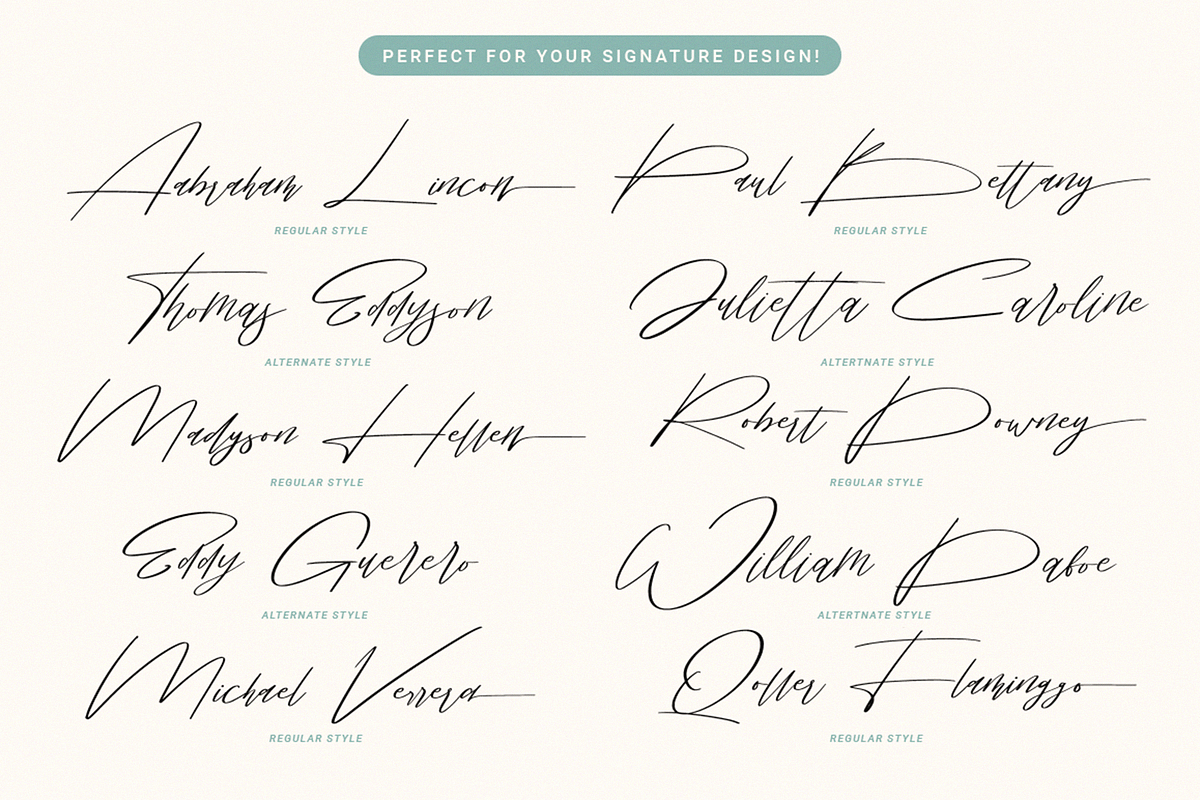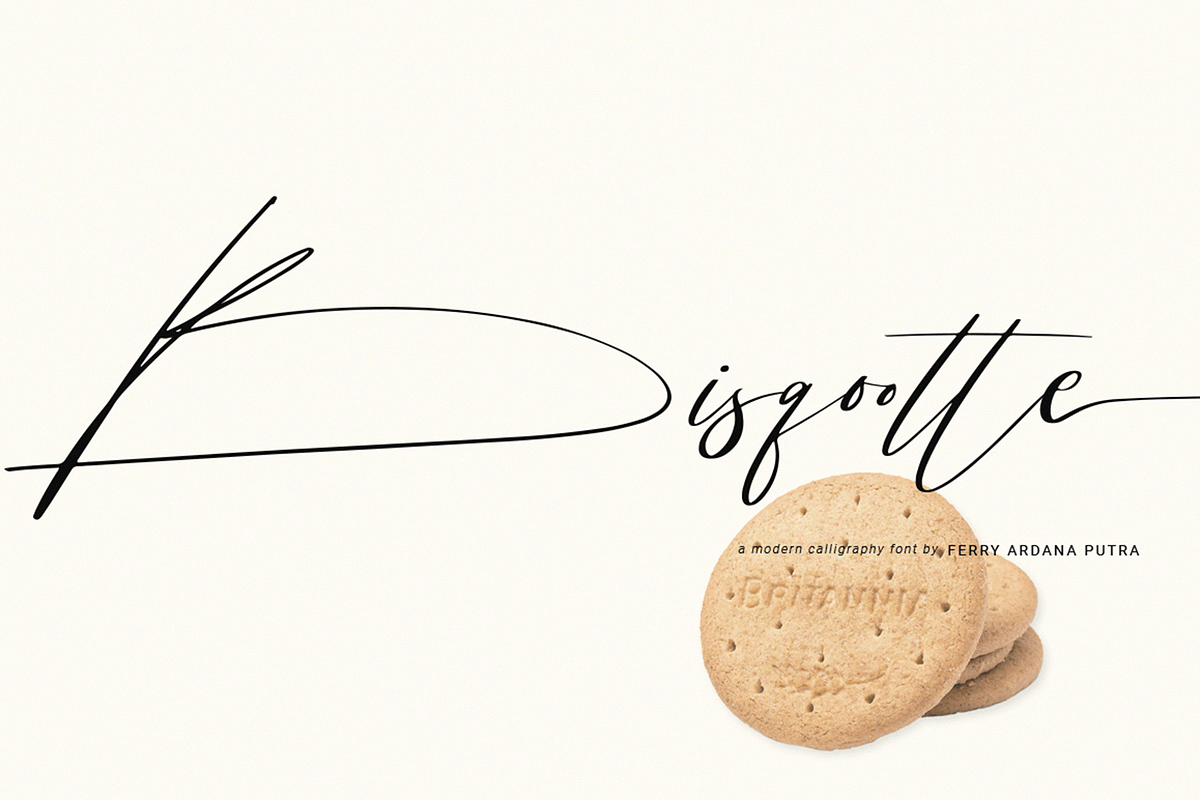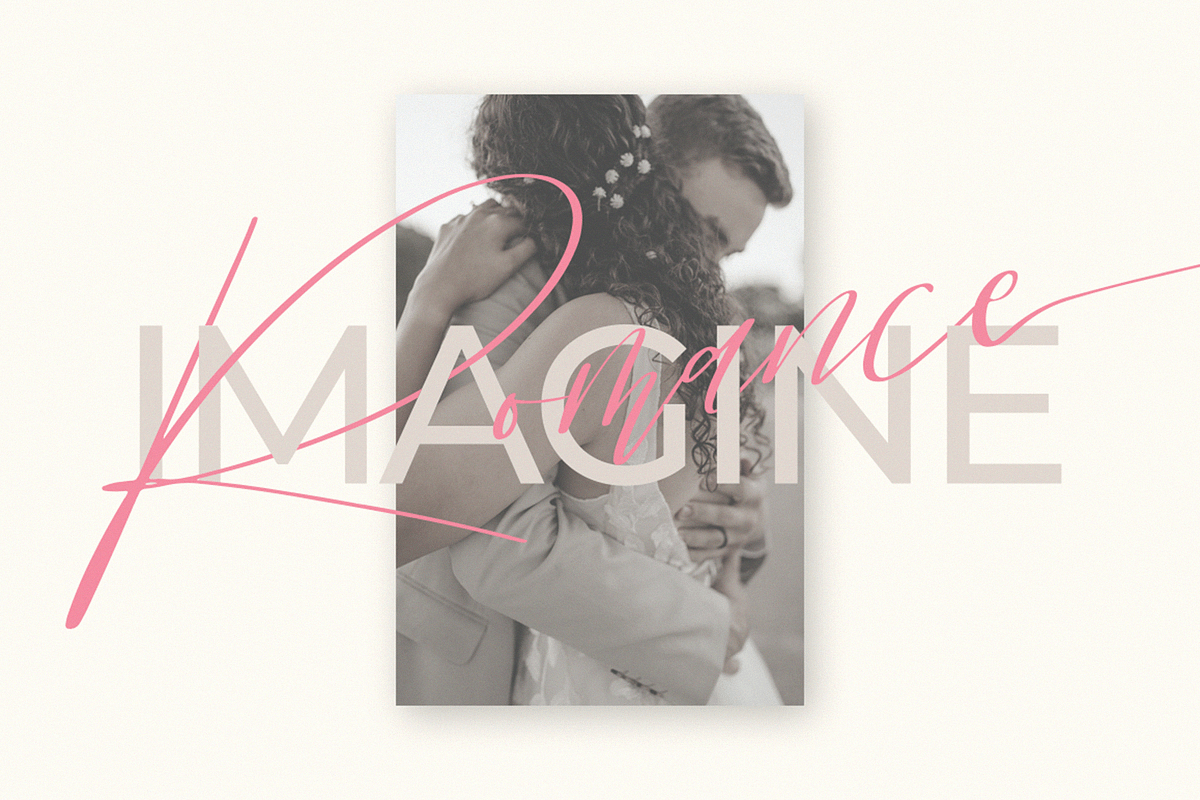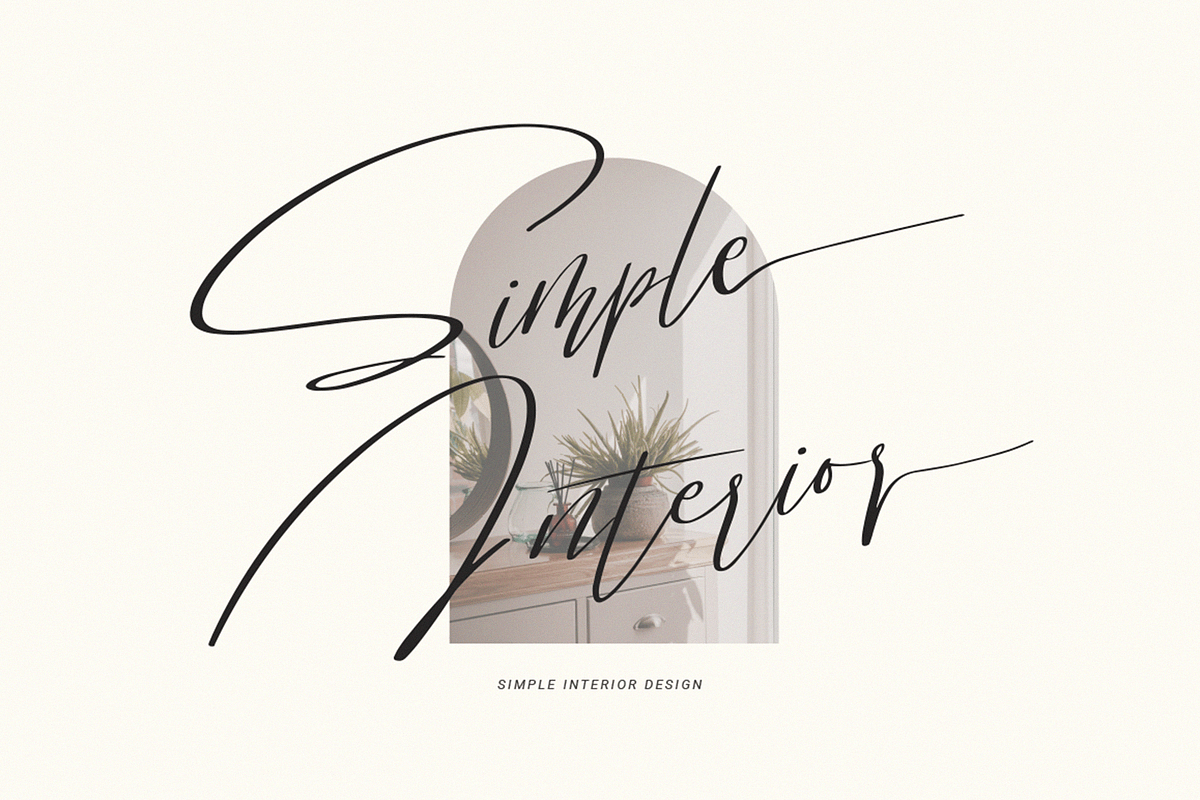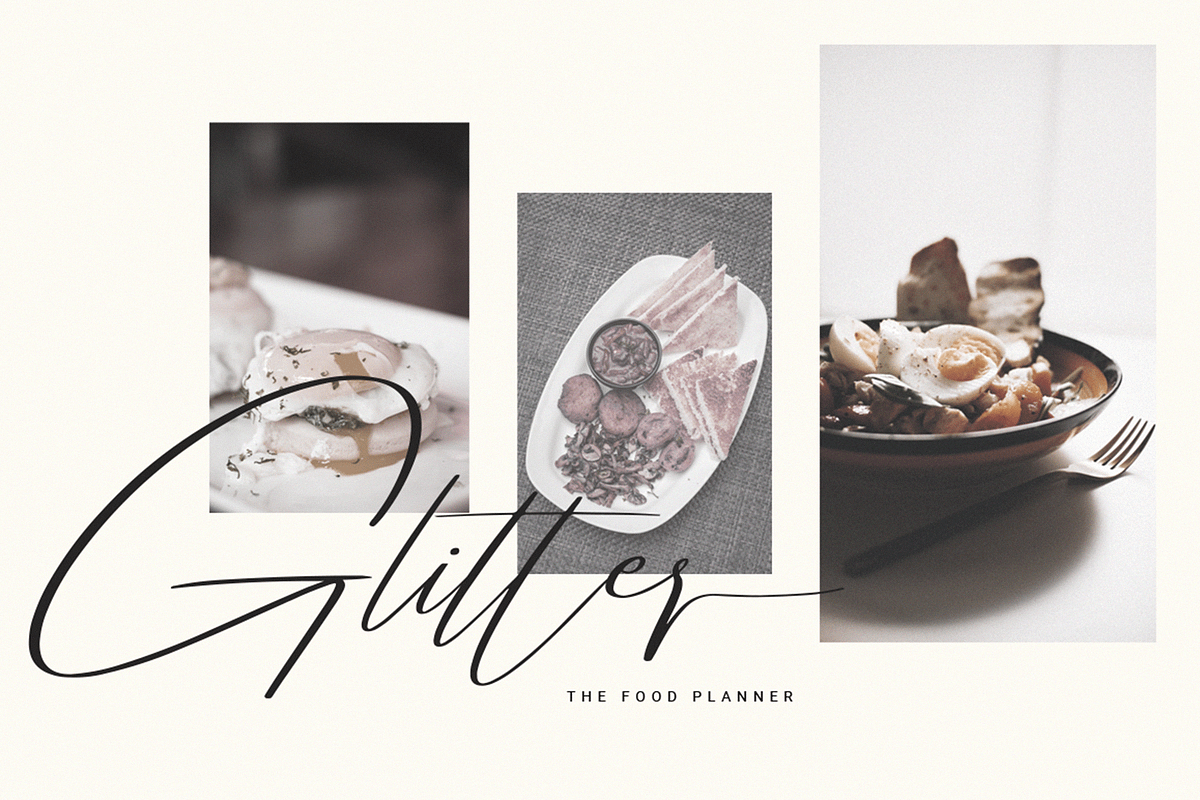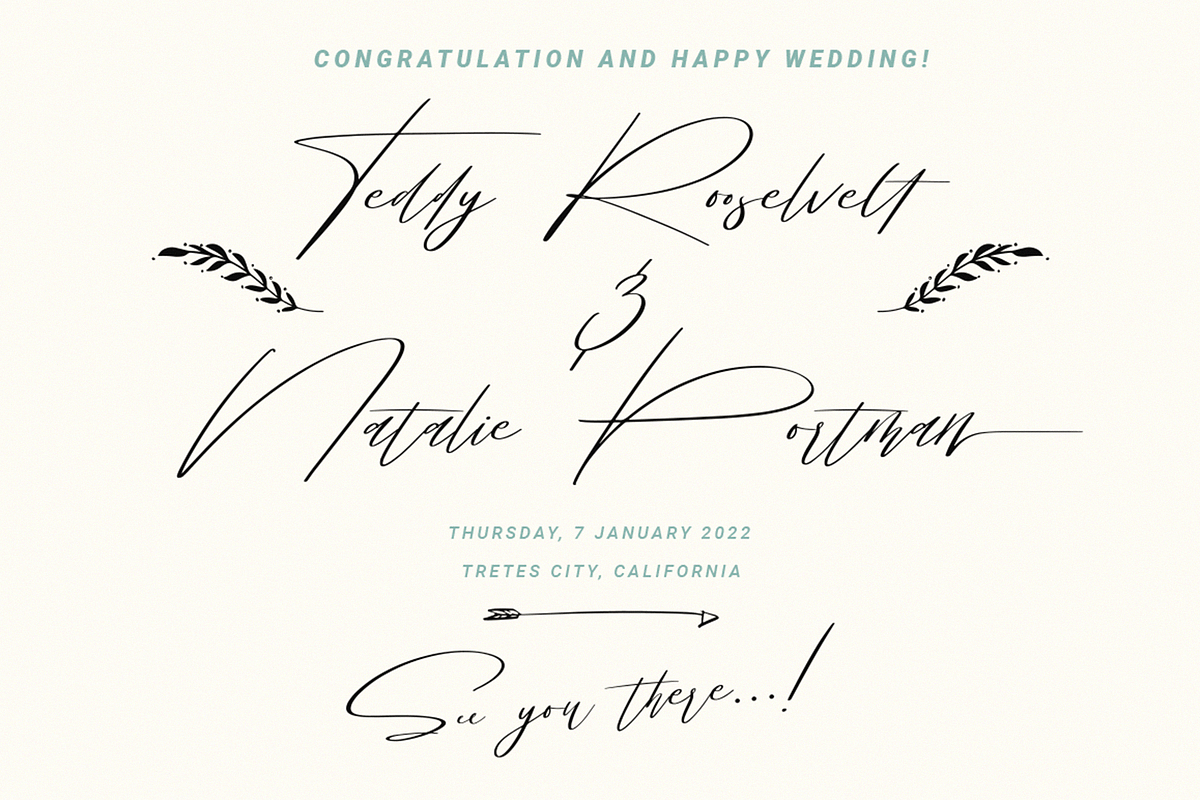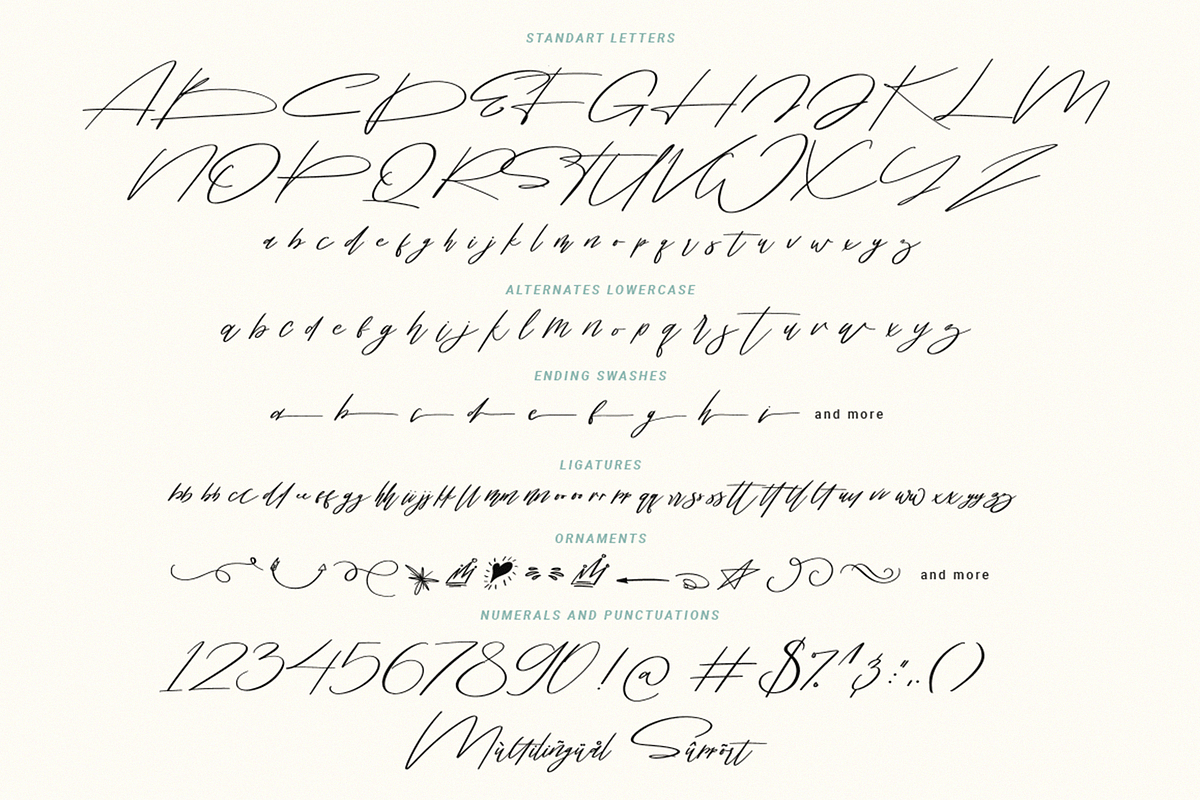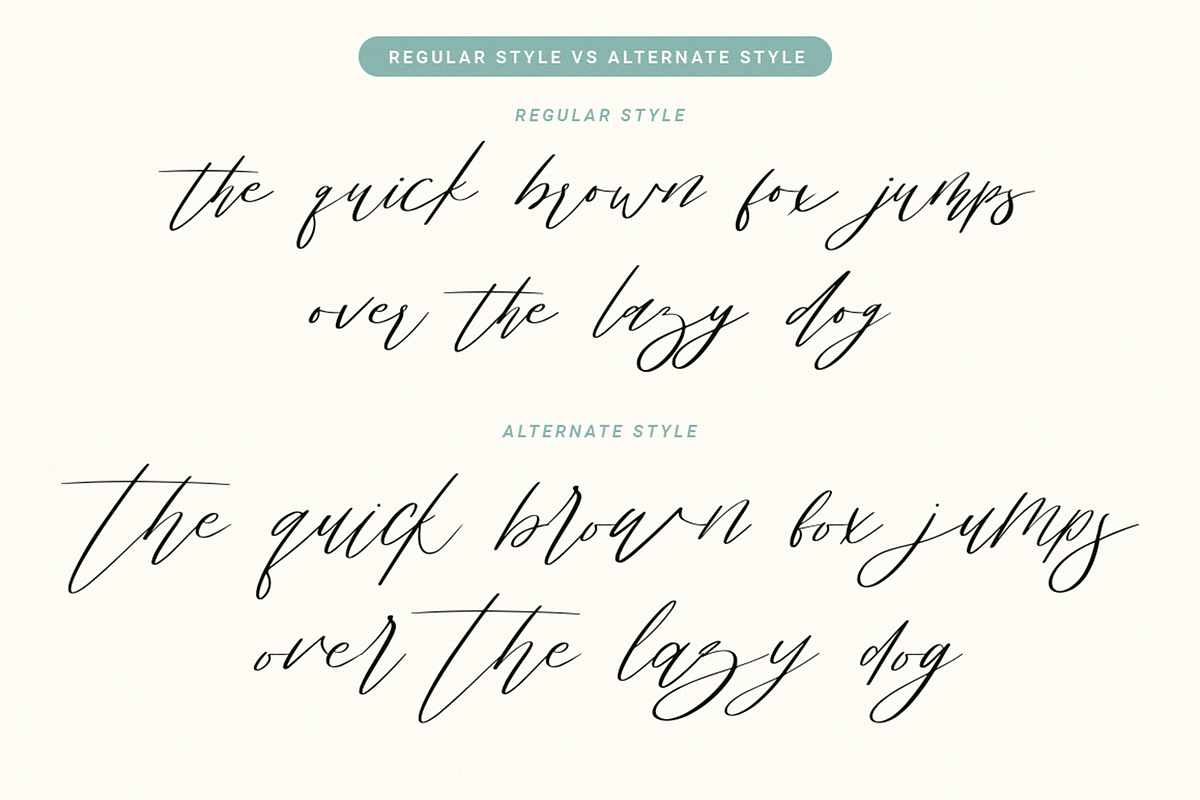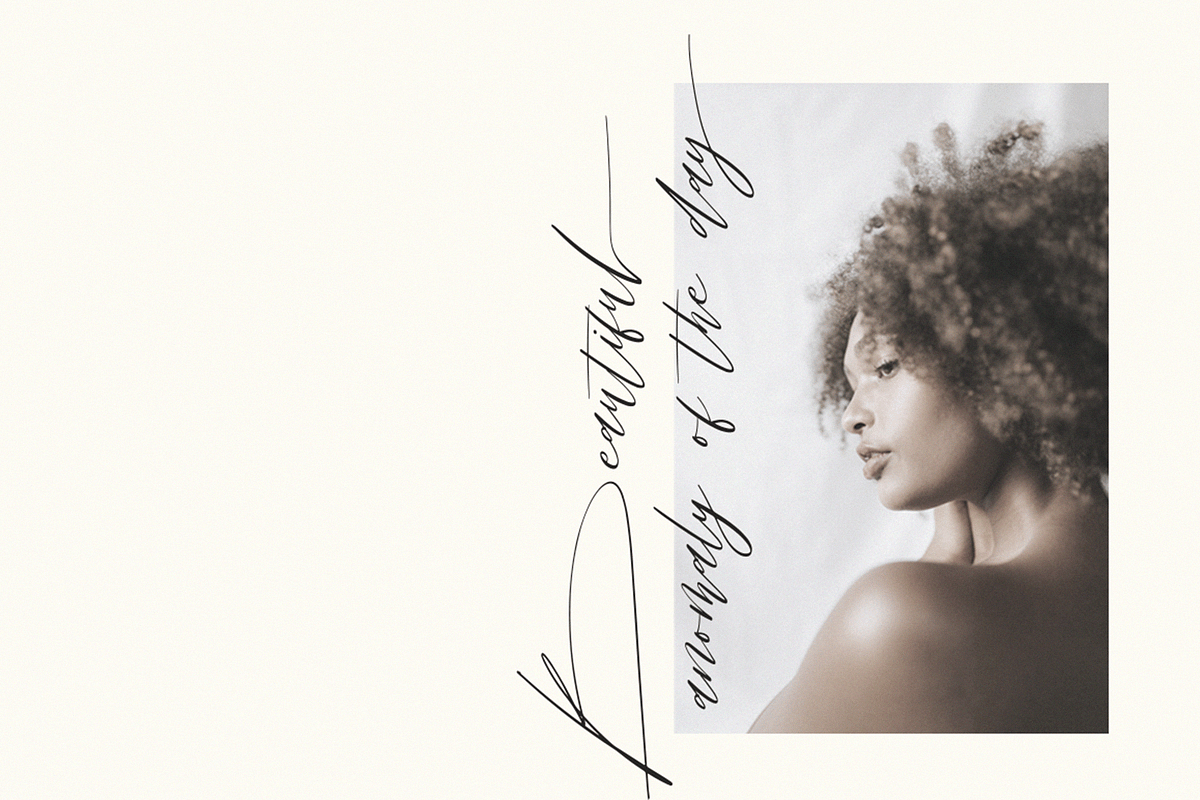
Bisqootte | Modern Calligraphy Font
Bisqootte is modern calligraphy font that is made by Ferry Ardana Putra. This font is handmade manually using a traditional pen inspired by natural writing and random scratches.
Bisqootte is a modern calligraphy typeface that has a luxury feels with additional swashes, alternates, and ornaments. Combined that precious combos to make your best natural-signature feel on your glamour project!
Bisqootte is perfect for branding, photography, invitations, quotes, watermarks, advertisements, social media posts, stationery, labels, and more!
Bisqootte features:
A full set of upper & lowercase characters
Multilingual language support
+497 Glyph
Swashes
Ornaments
OpenType Features